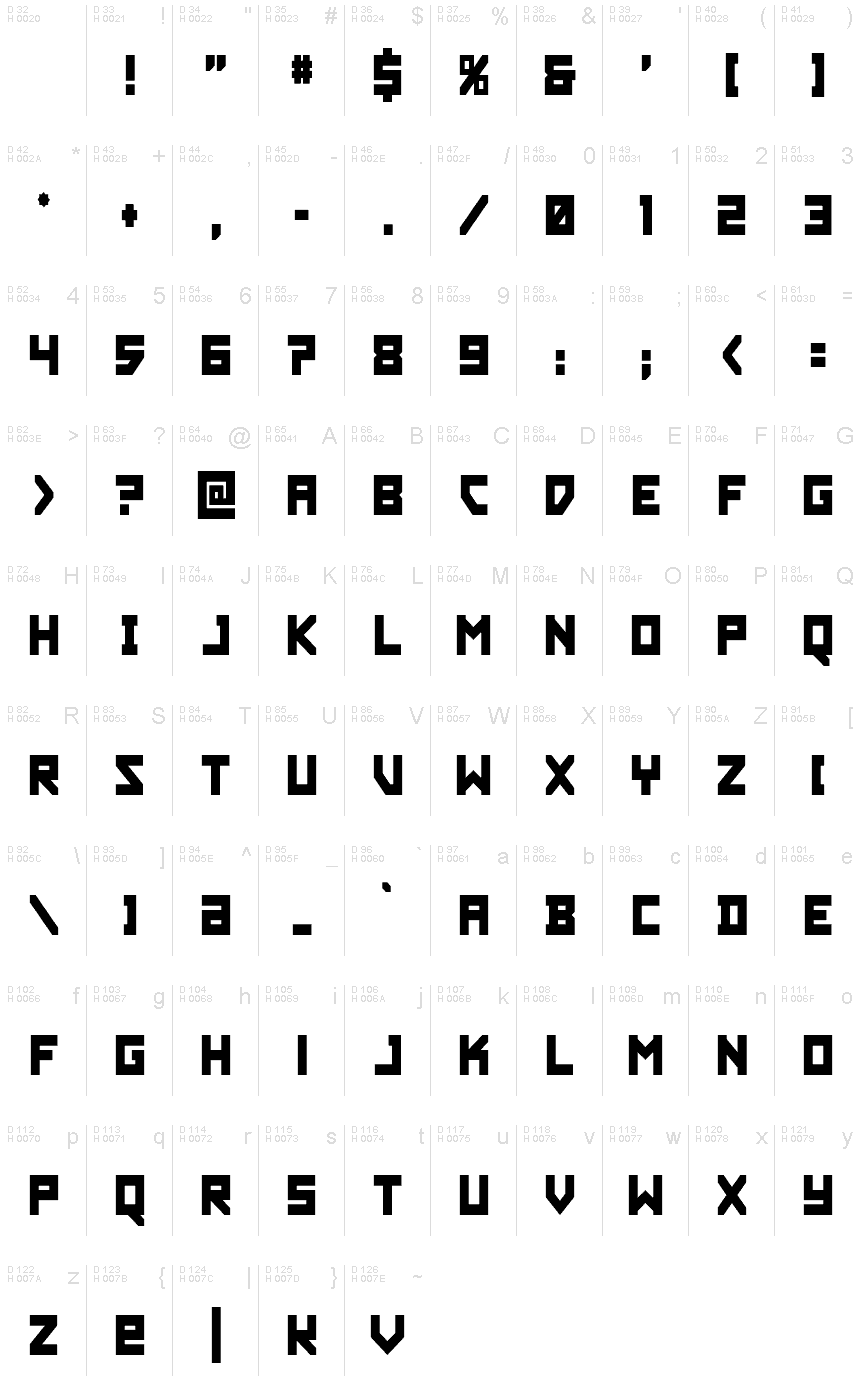
Hibernal Sentry Condensed
Hibernal Sentry Condensed is the bold weight of Hibernal Sentry, a modern techno font designed by Iconian Fonts and created for branding projects, futuristic user interfaces, posters, flyers, and logo designs. Inspired by German display typefaces, it’s composed of sharp, thick, bold characters that fit modern themes, and it’s ideal for headlines, text blocks, branding, apparel designs, flyers, etc. So, thanks to Iconian Fonts and the Hibernal Sentry Condensed font, we can say that design is now available in bold!